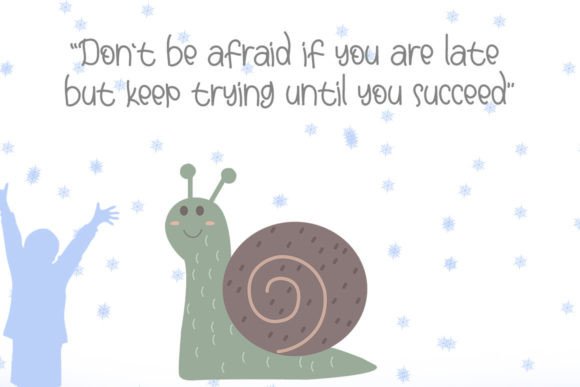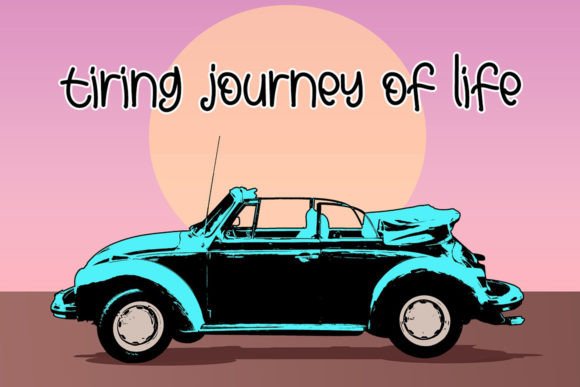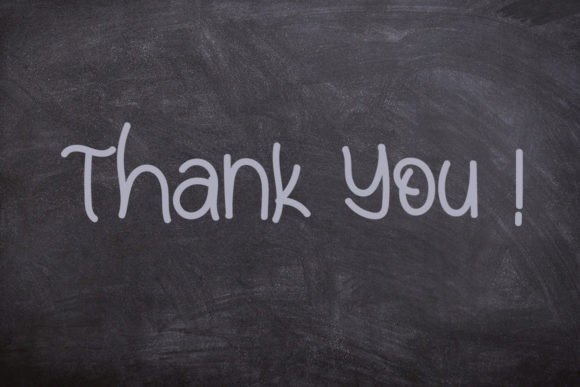
Introduction to Kick Boys Font
Kick Boys is a funny and cute handwritten font.
This lovely typeface is suitable for banners, quotes, branding, fashion, clothing, headings, magazine previews and covers design, logo designs, shirt designs, and other graphic needs .
Key Features of Kick Boys Font
Why Choose Kick Boys Font?
Kick Boys Font offers exceptional quality and versatility, making it a valuable addition to your design toolkit. Whether you’re creating for personal projects or commercial use, Kick Boys Font delivers professional results.